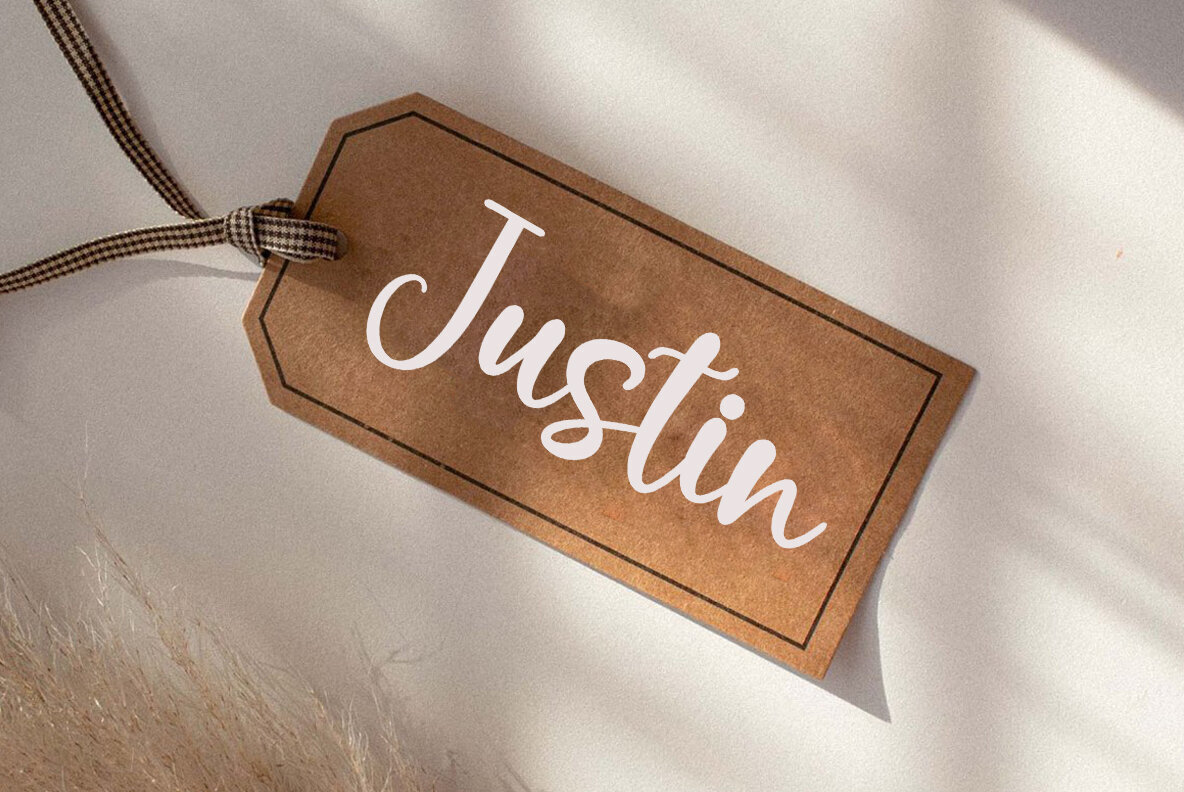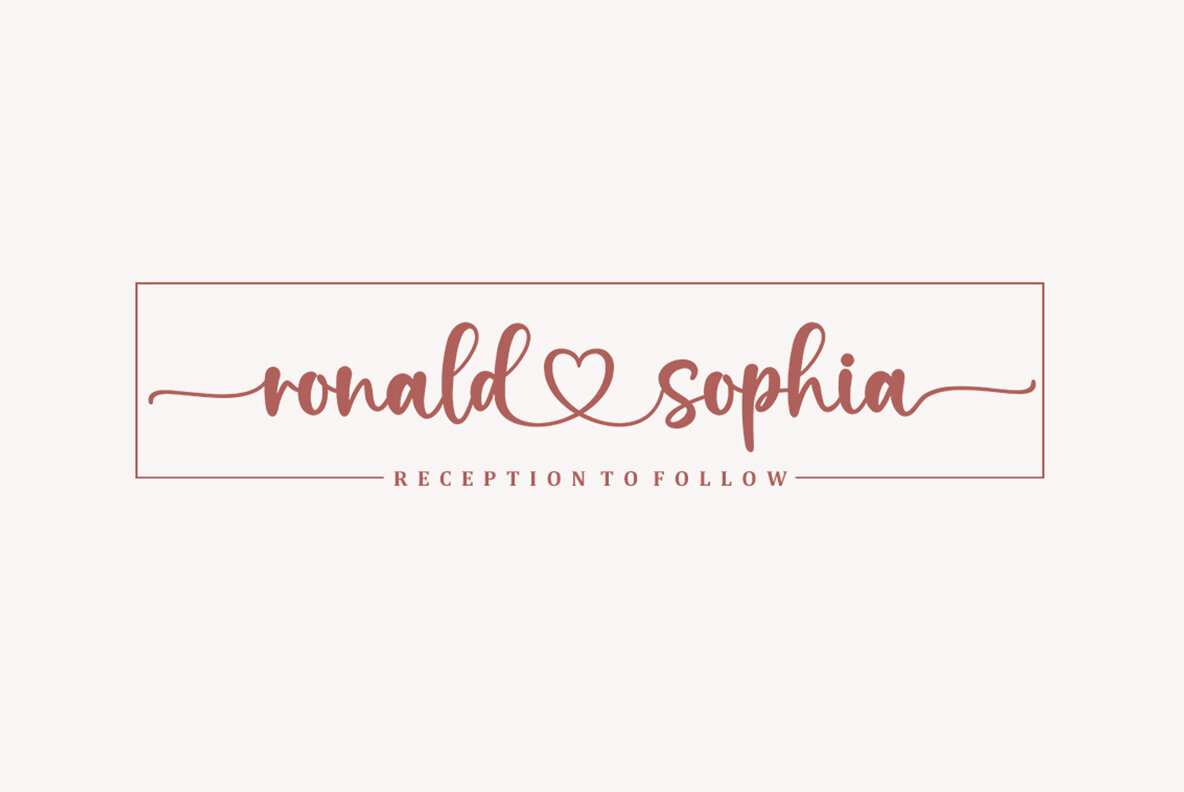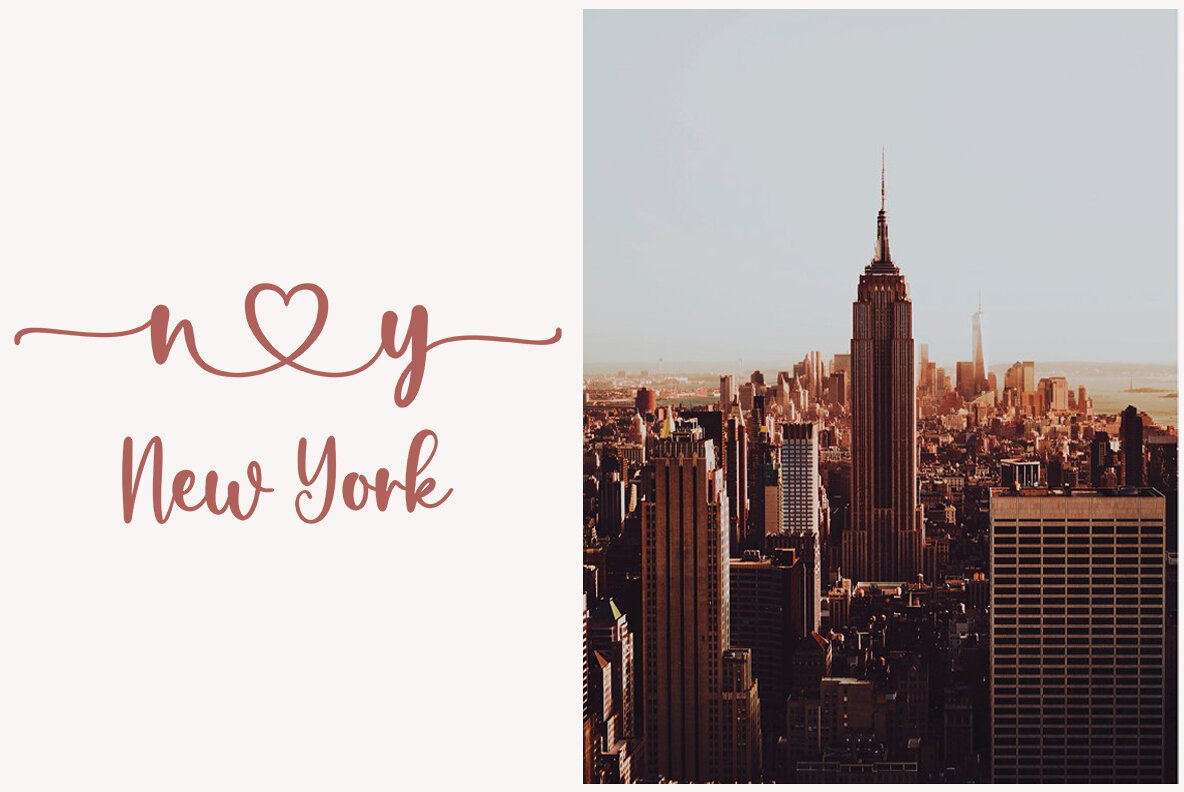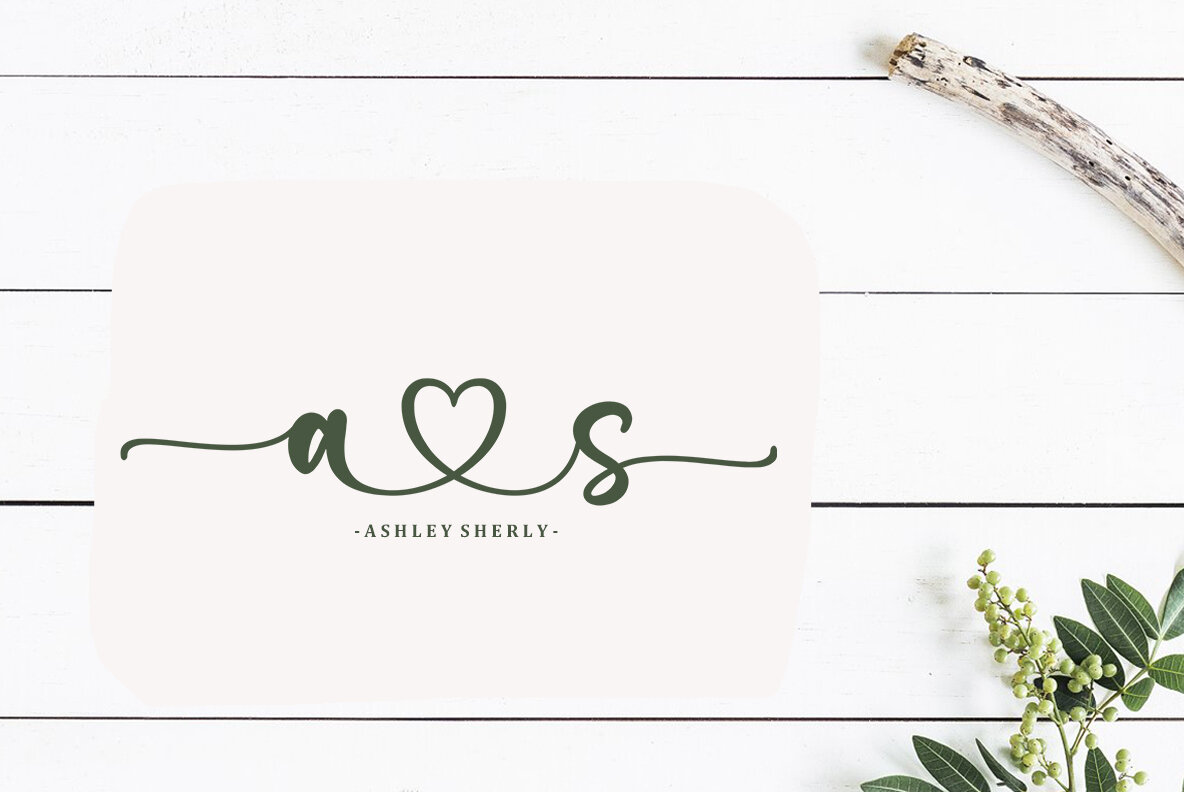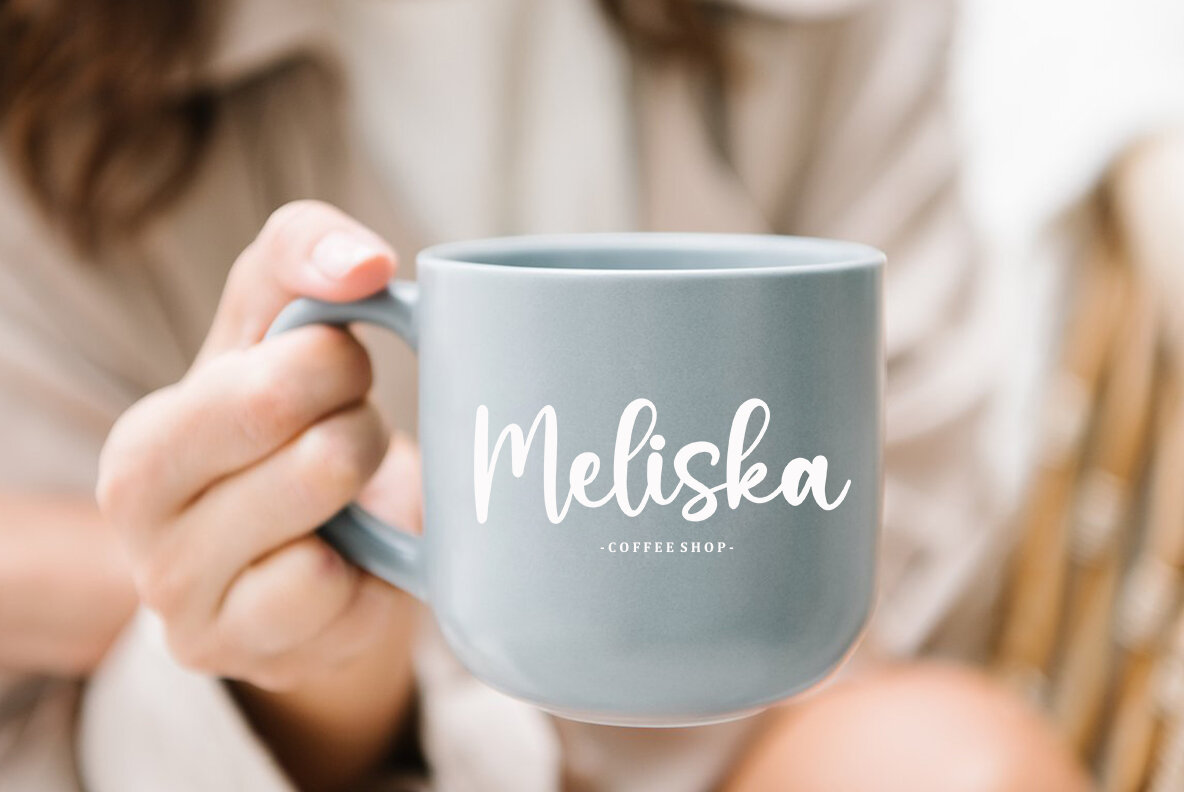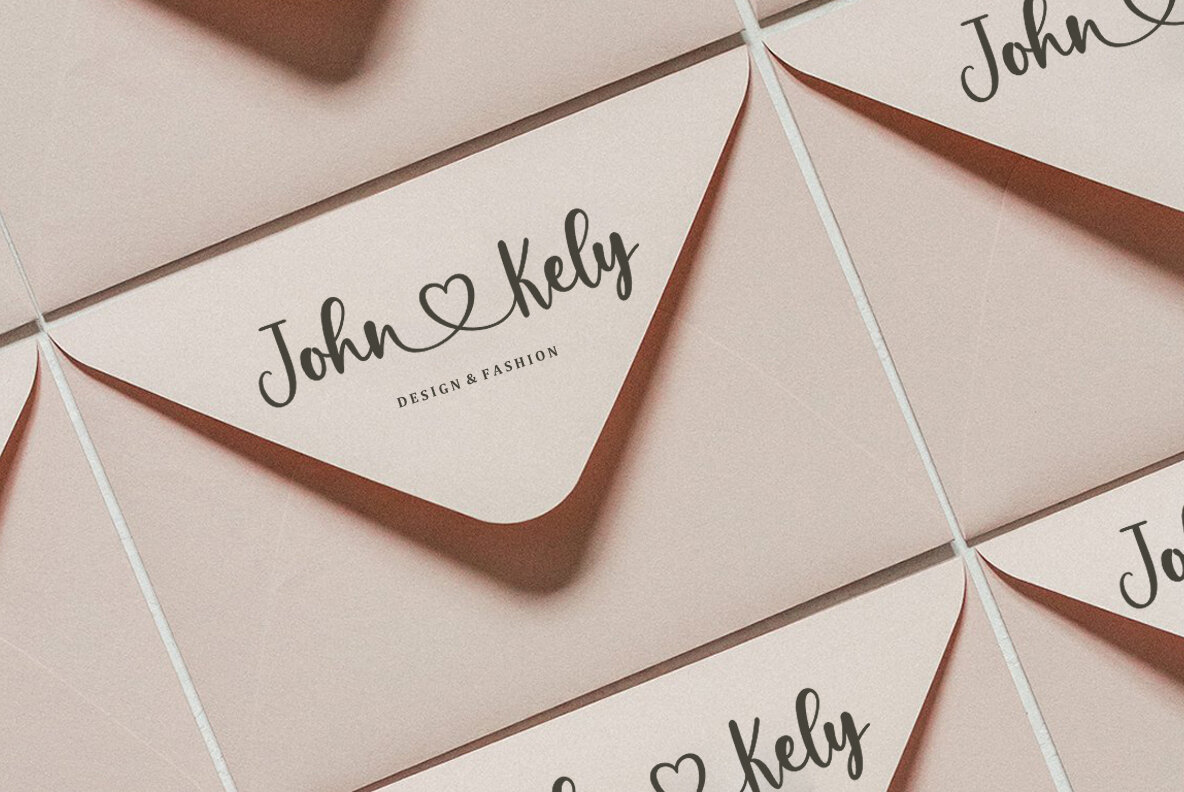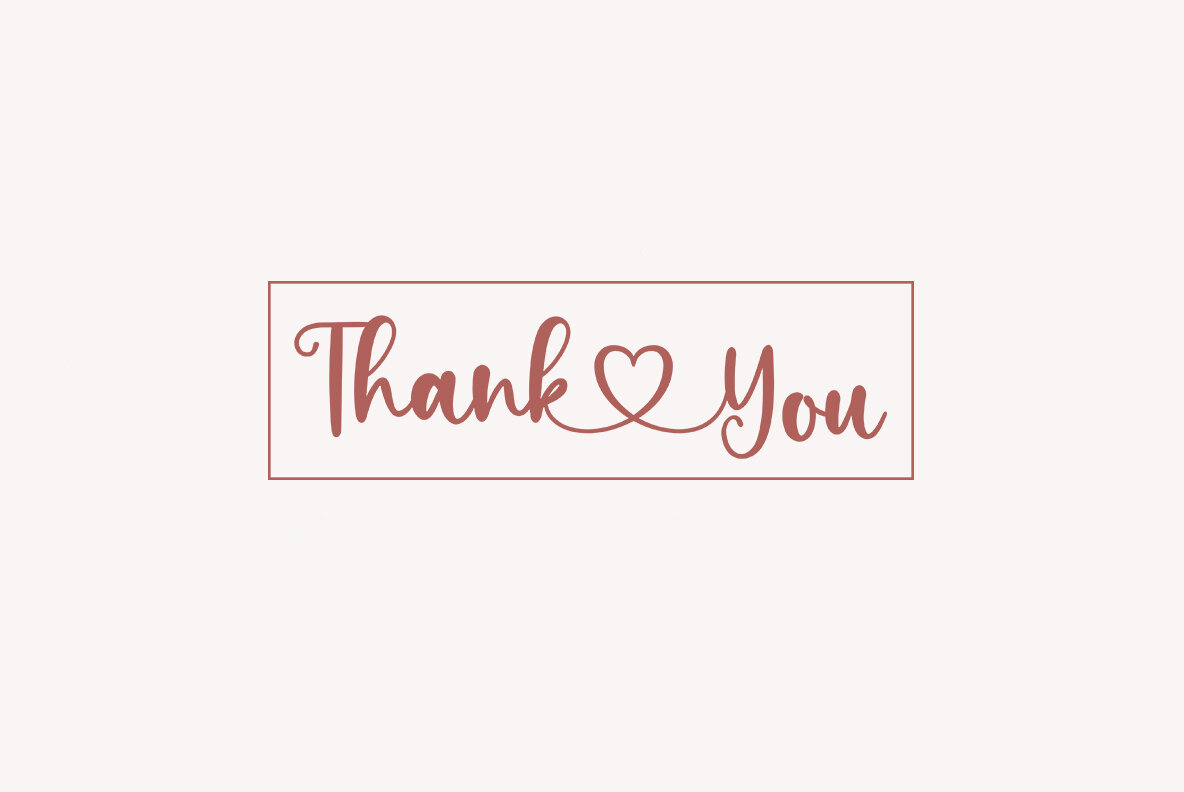
Kevin Keyla Font
Kevin Keyla Regular
The art of script fonts lies in their ability to convey elegance and fluidity with each stroke. Kevin Keyla excels in this domain, offering designers a versatile tool for both personal and professional projects. This font is characterized by its smooth, flowing lines that capture a sense of grace and sophistication.Kevin Keyla: A Script Font with Elegance and Flow